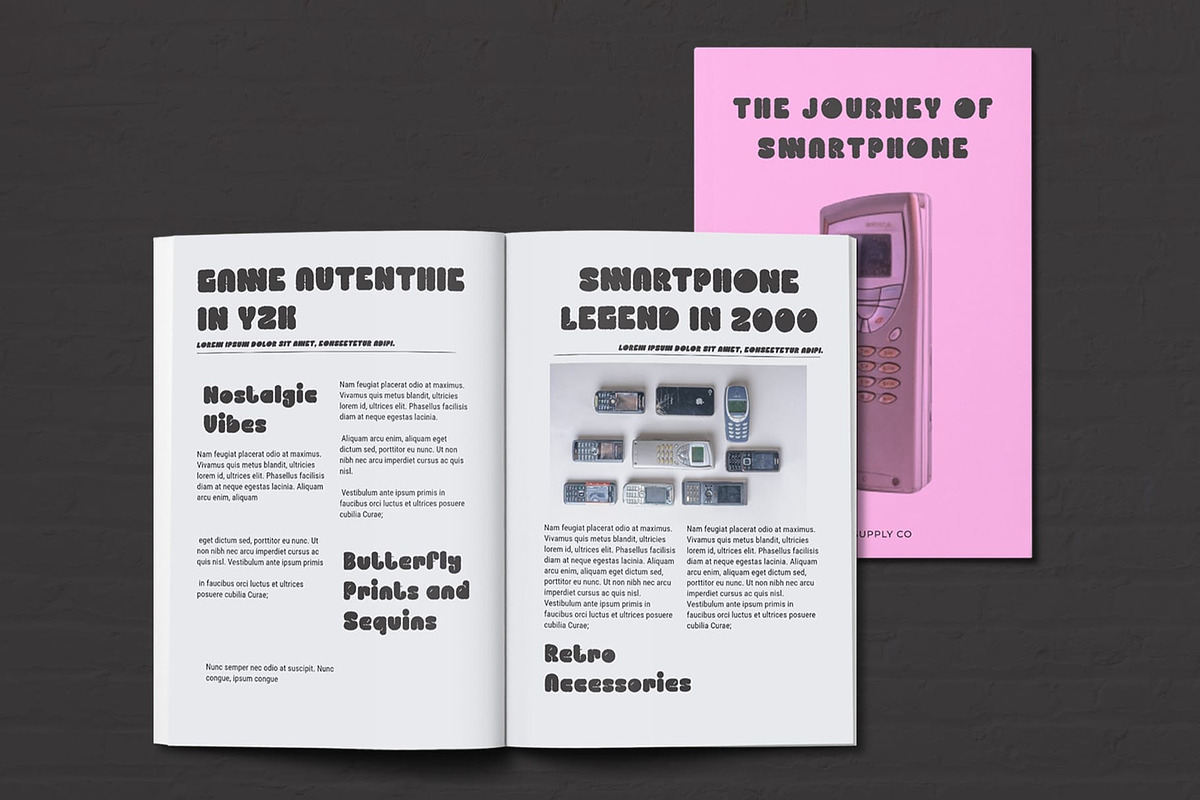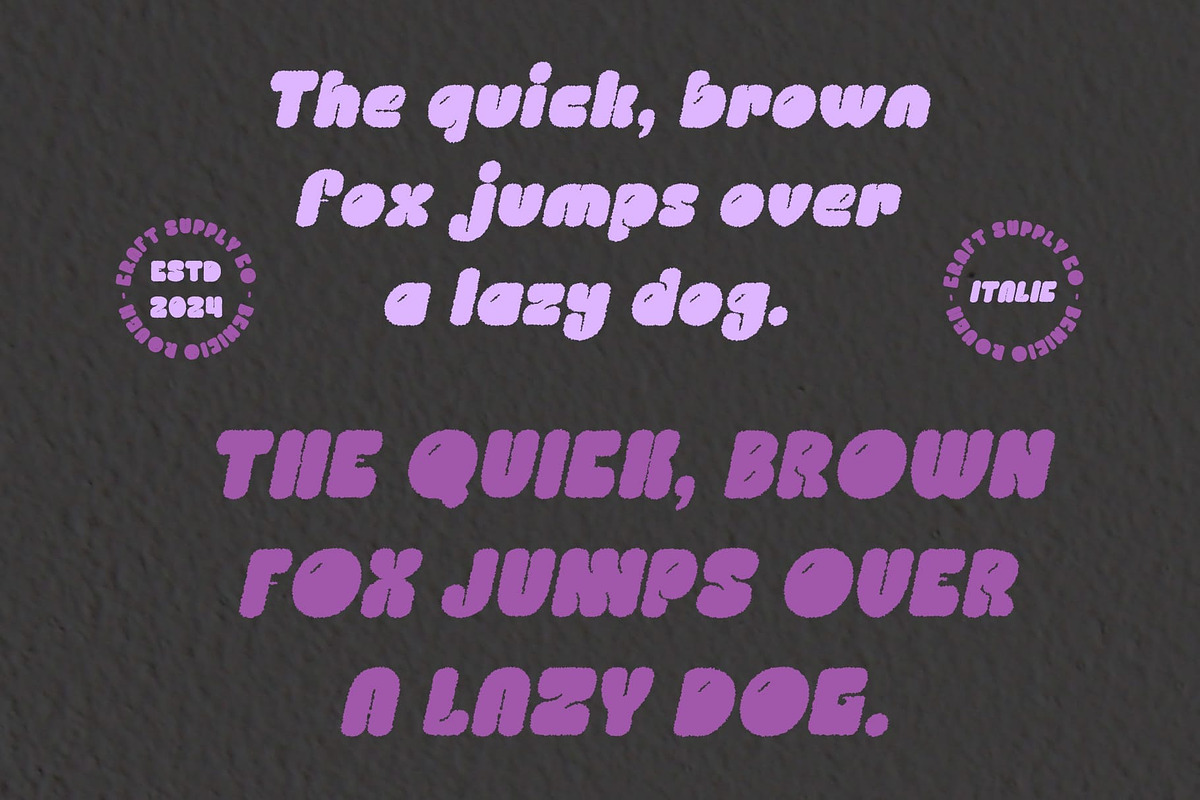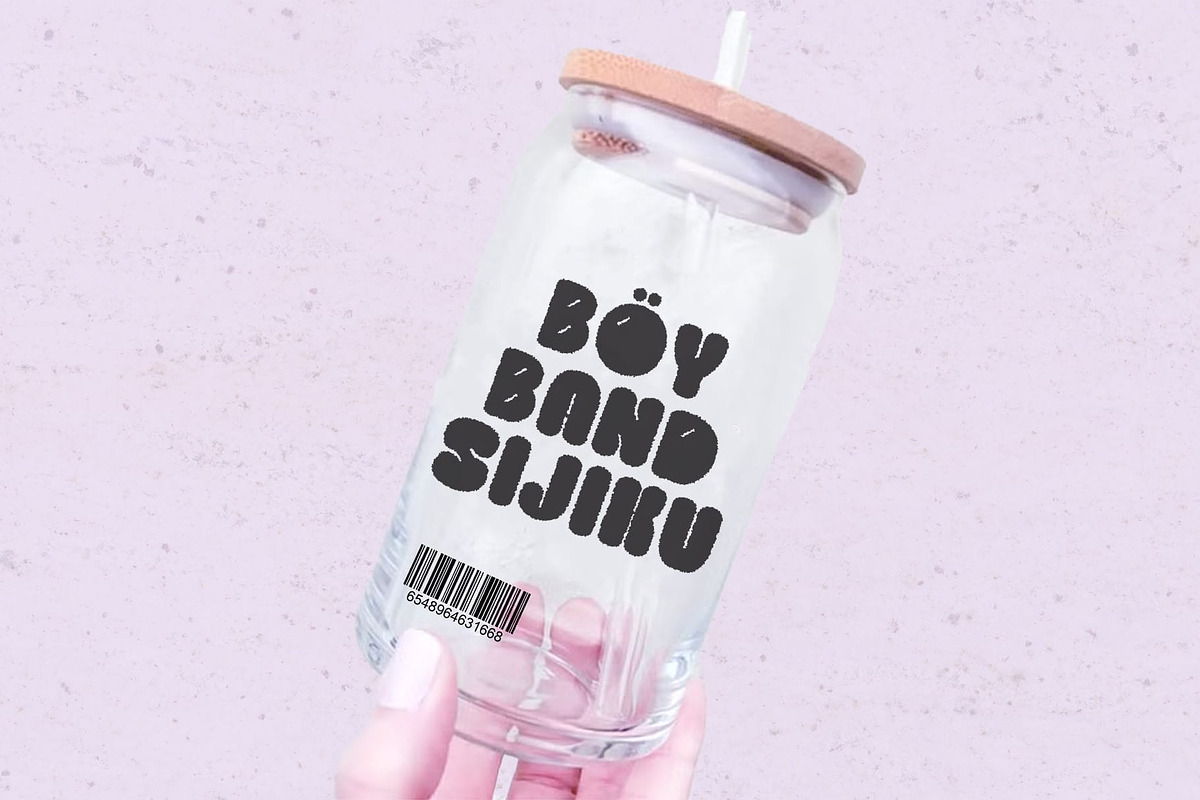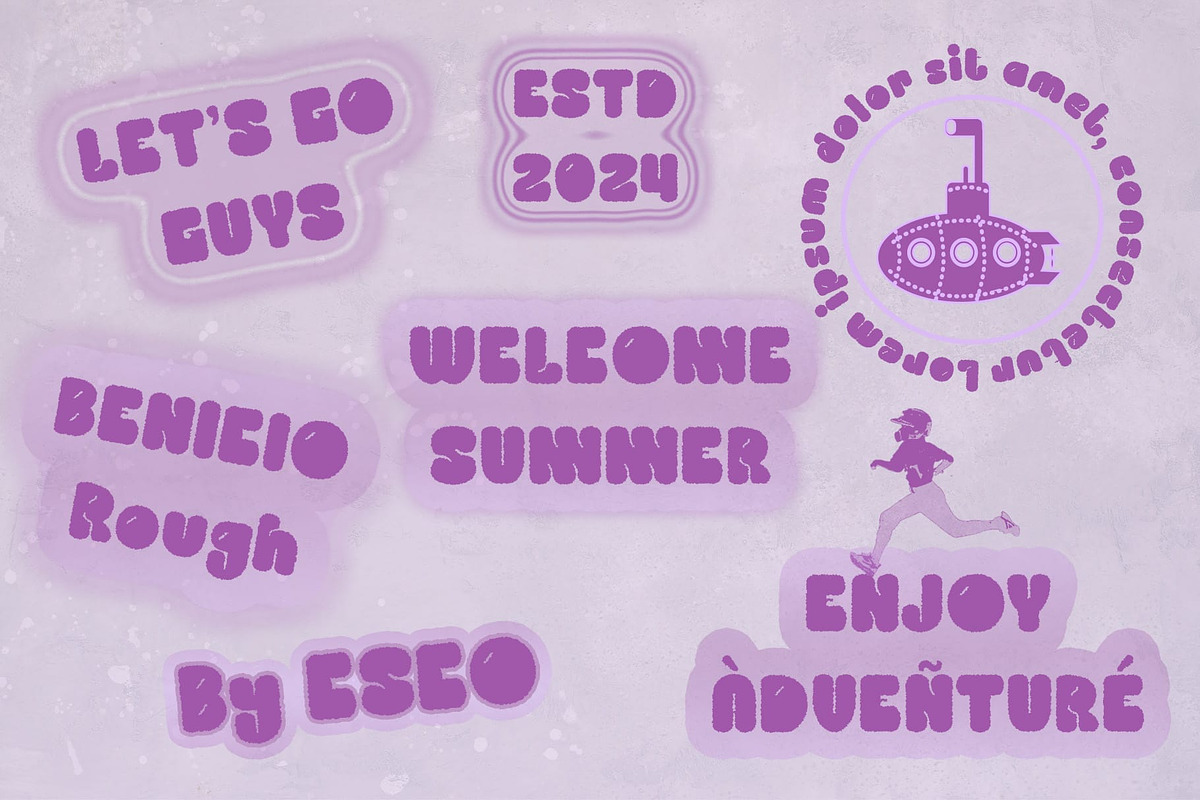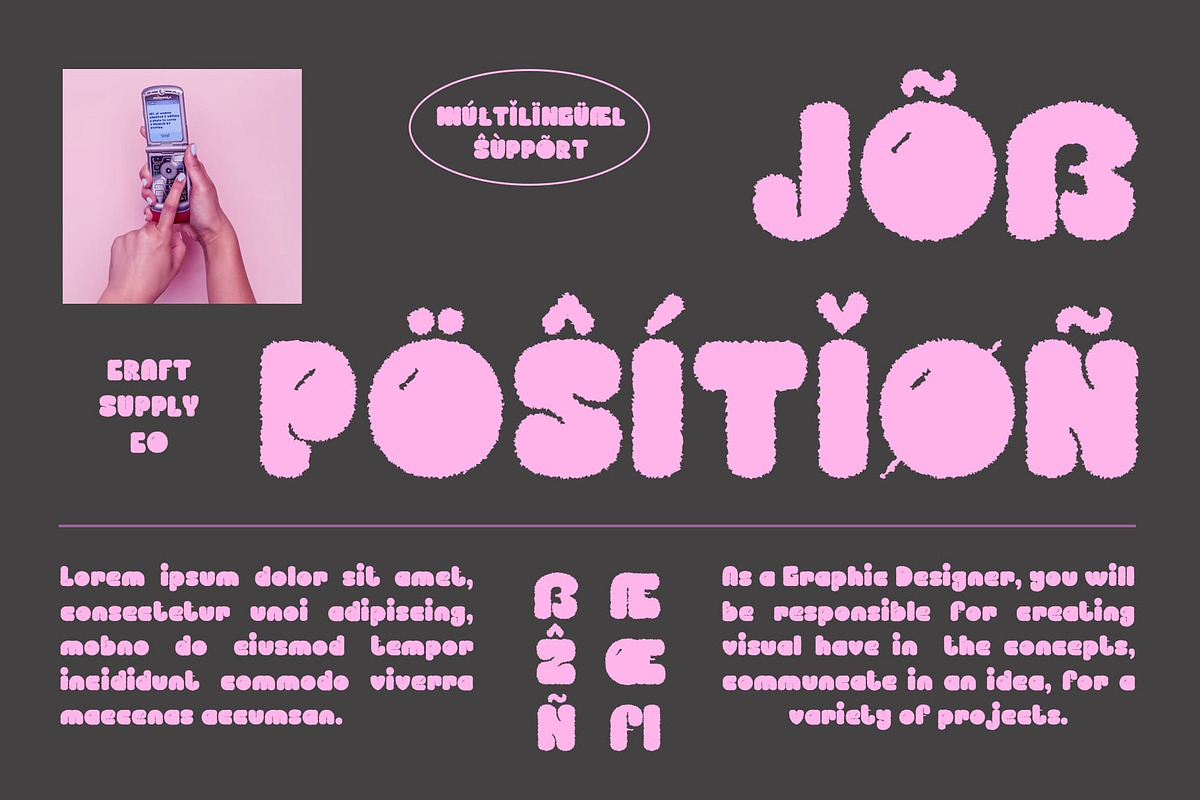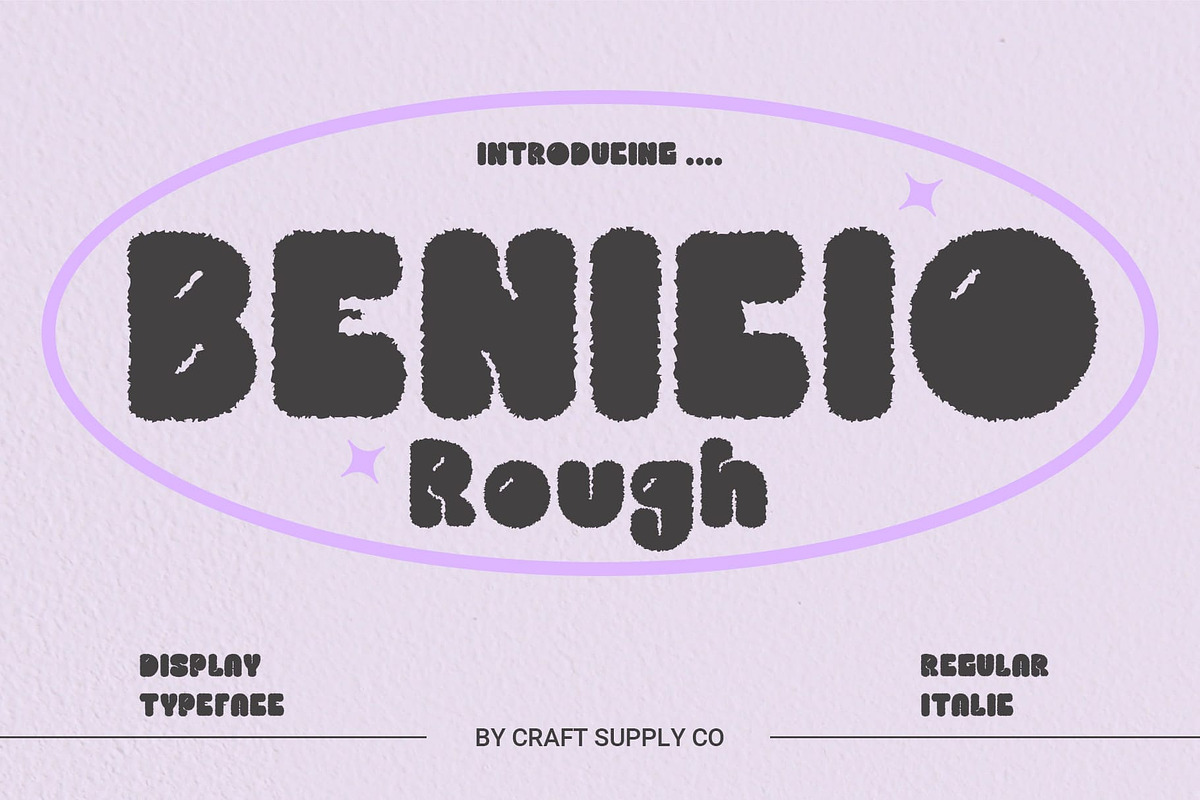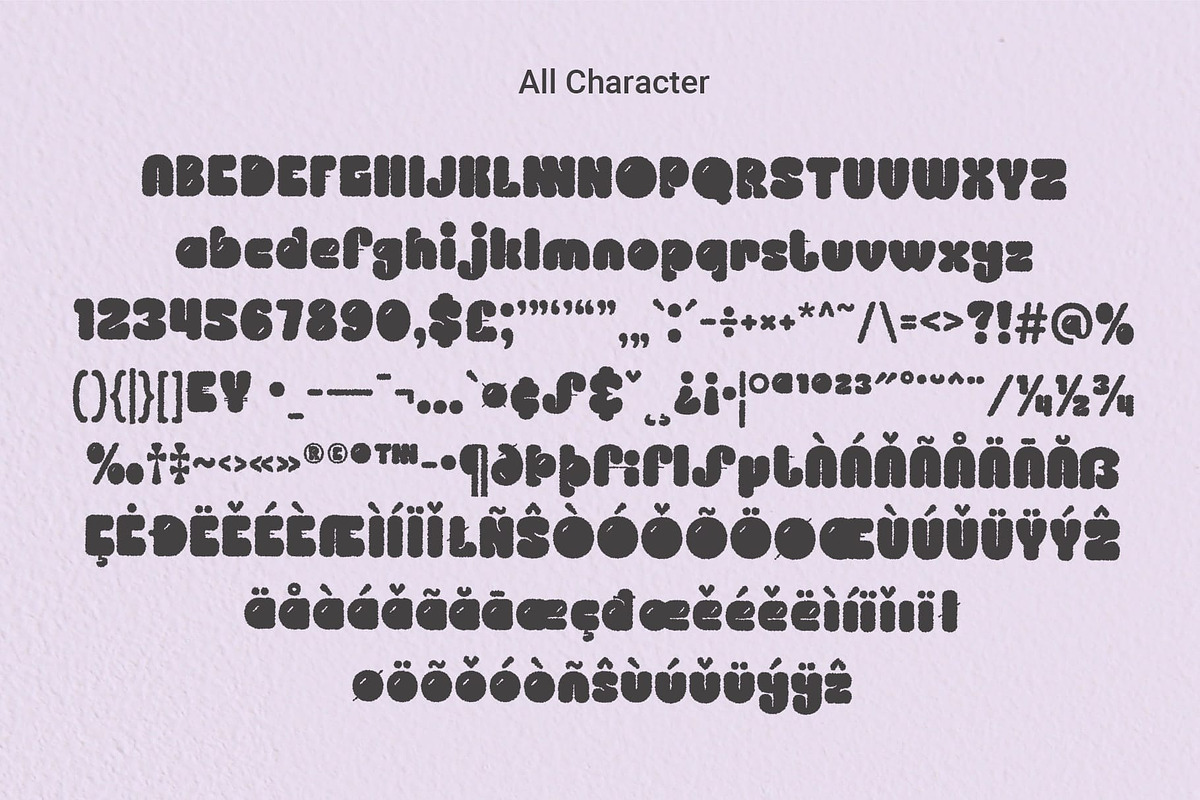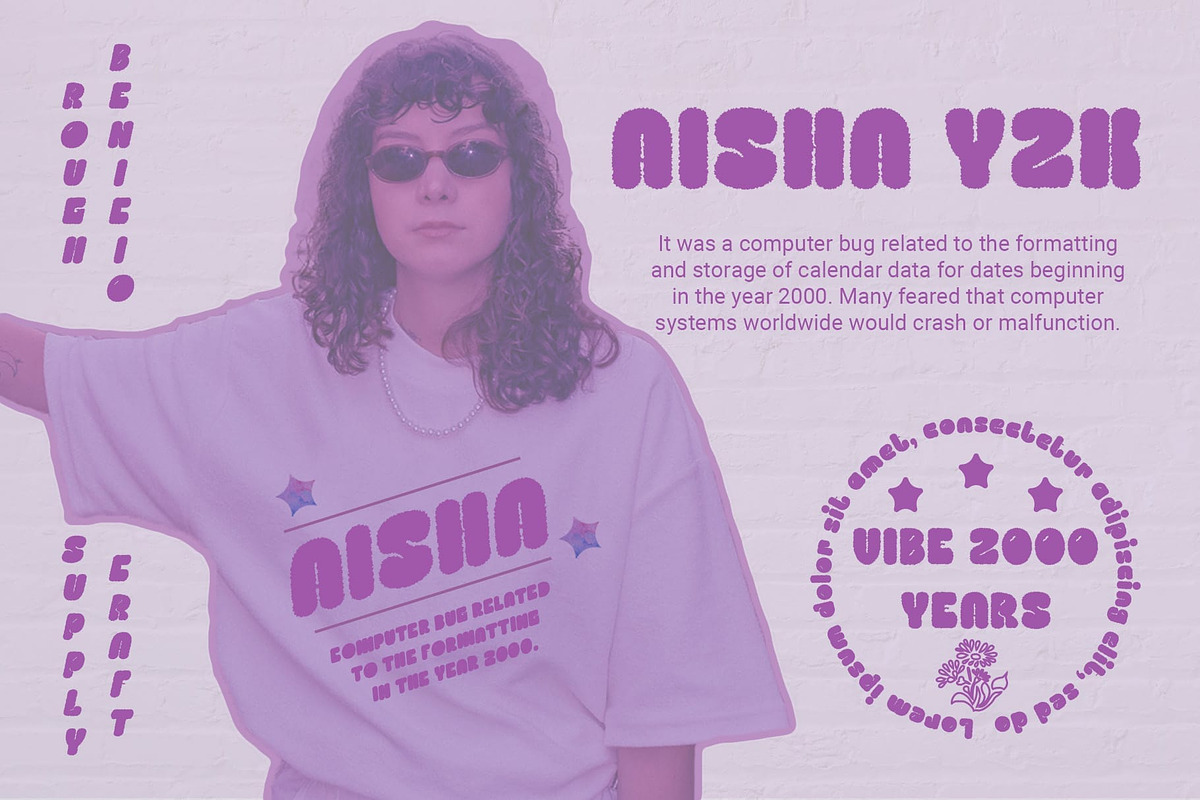
Benicio Rough
Benicio Rough: Playful Bubble Display Font
Drawing Inspiration from Balloons Benicio Rough draws its inspiration from the buoyant and whimsical shapes of balloons, infusing your designs with a sense of joy and light-heartedness.
Textured for Authenticity The rough texture effect of This font adds an authentic and handcrafted feel to your designs, elevating them with character and uniqueness.
Tailored for Eye-Catching Displays Specifically crafted for display purposes, This font excels at grabbing attention and making a bold statement. Its bubbly form is perfect for eye-catching headlines, banners, and logos.
Versatile and Vibrant Beyond its playful appearance, This font offers versatility in application. Whether used in digital or print media, it injects a vibrant and dynamic energy into any design.
Bursting with Personality This font stands out as a versatile and lively bubble display font. Inspired by the buoyancy of balloons and featuring a rough texture effect, it adds authenticity and charm to your projects, ensuring they captivate and delight your audience. Step into the world of This font and let your creativity soar to new heights.